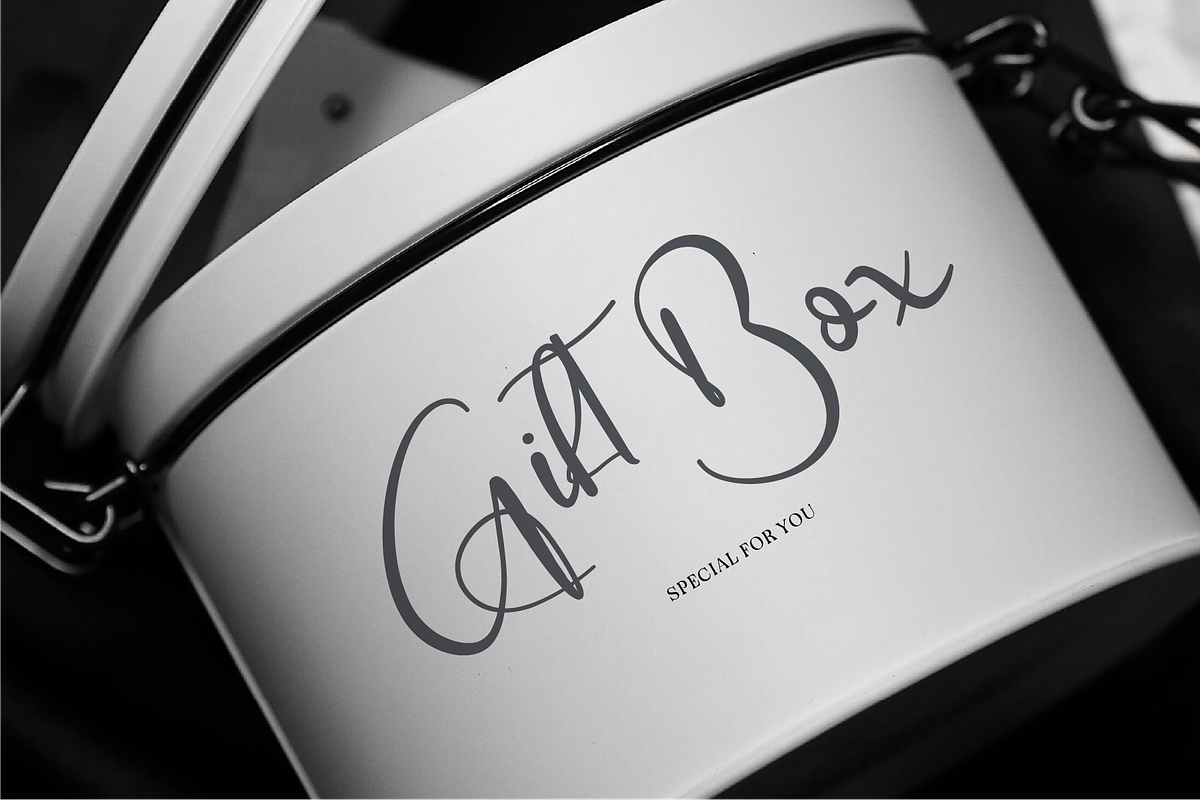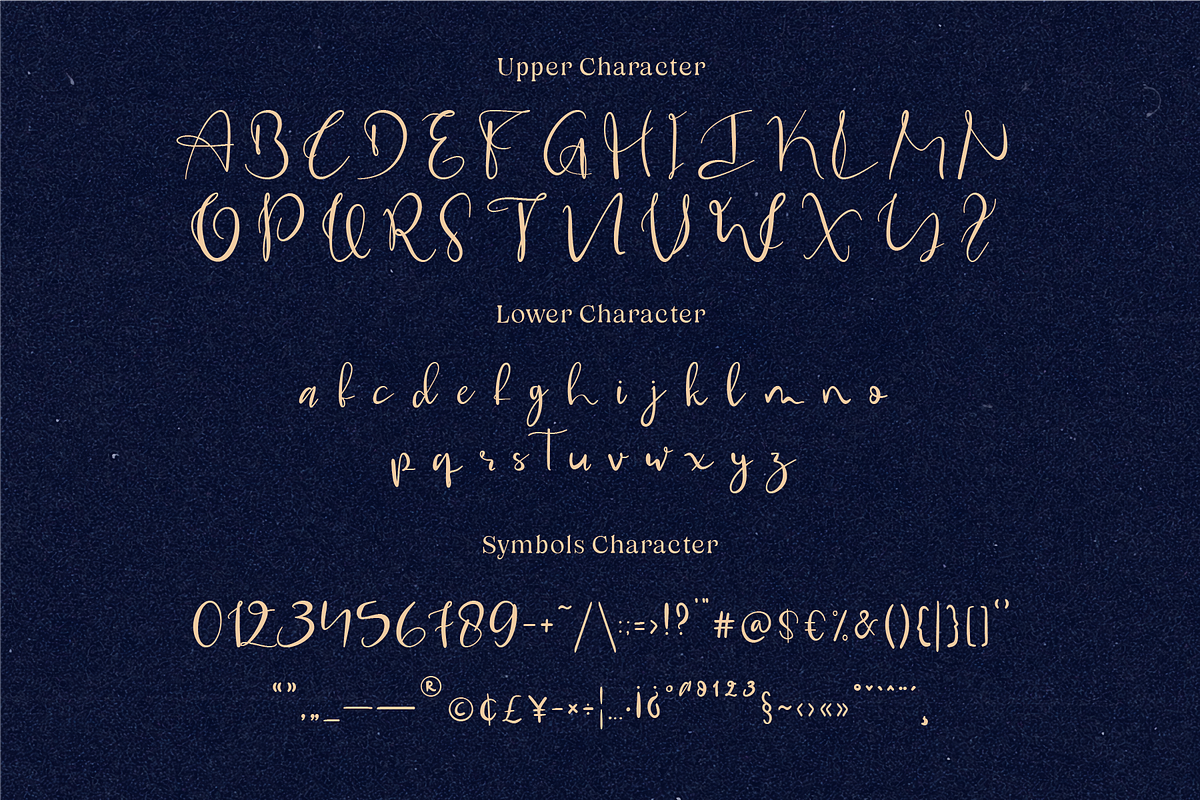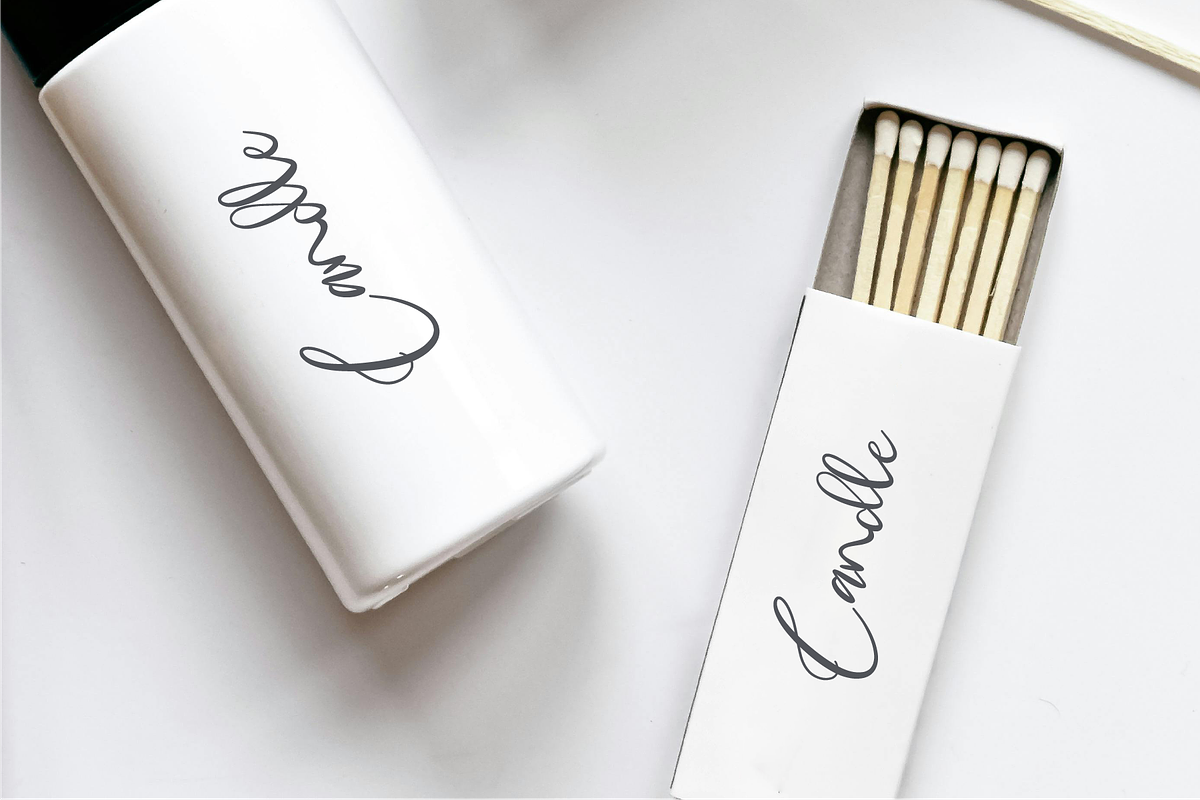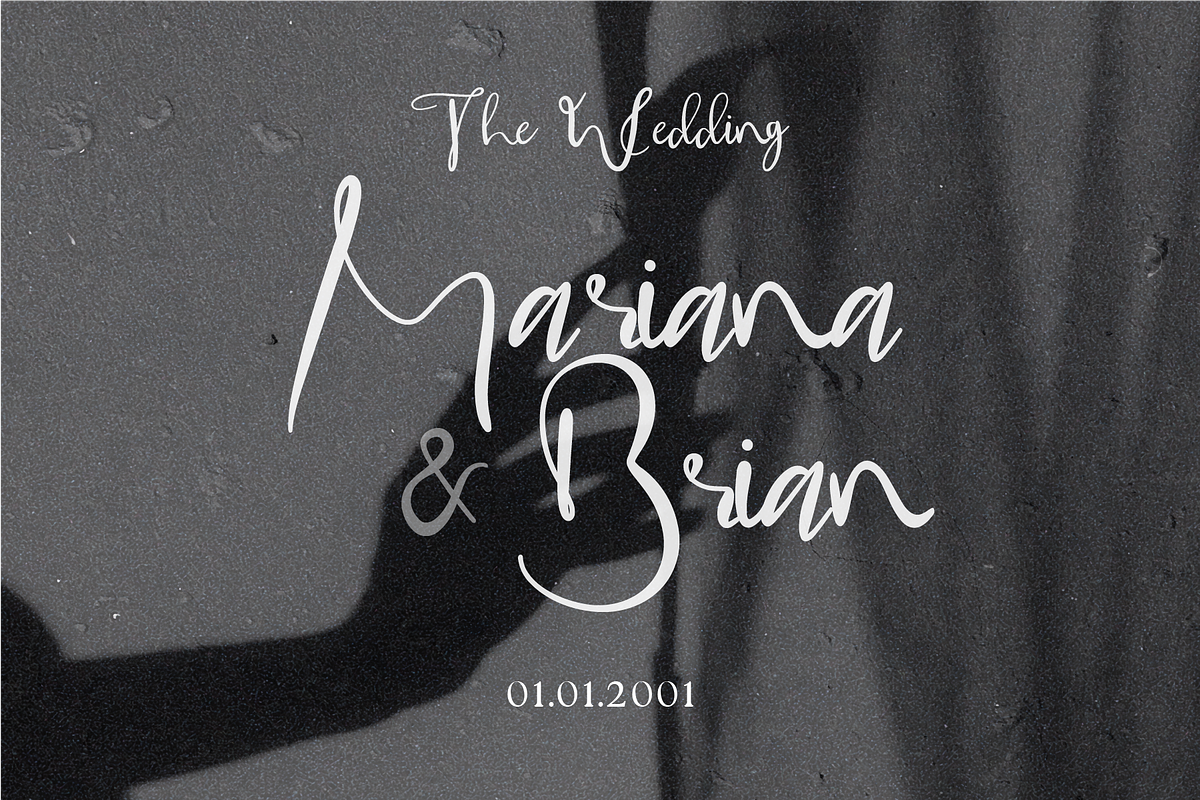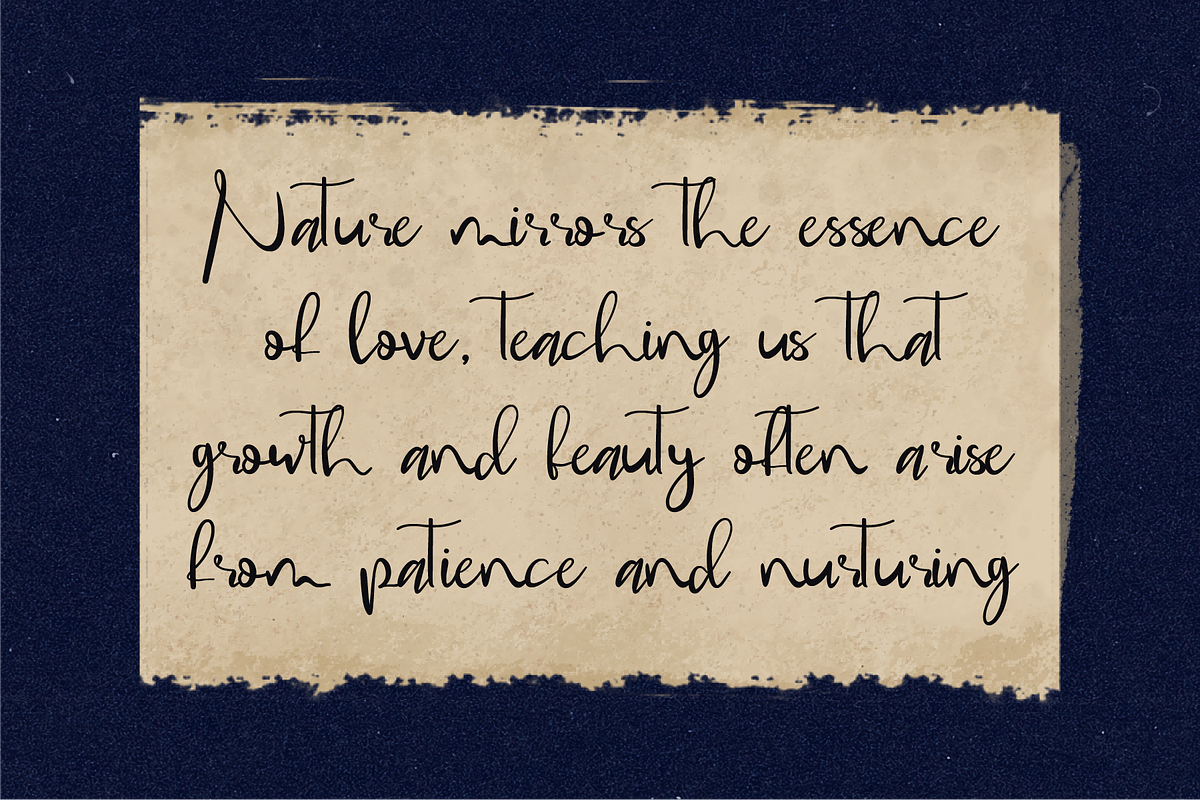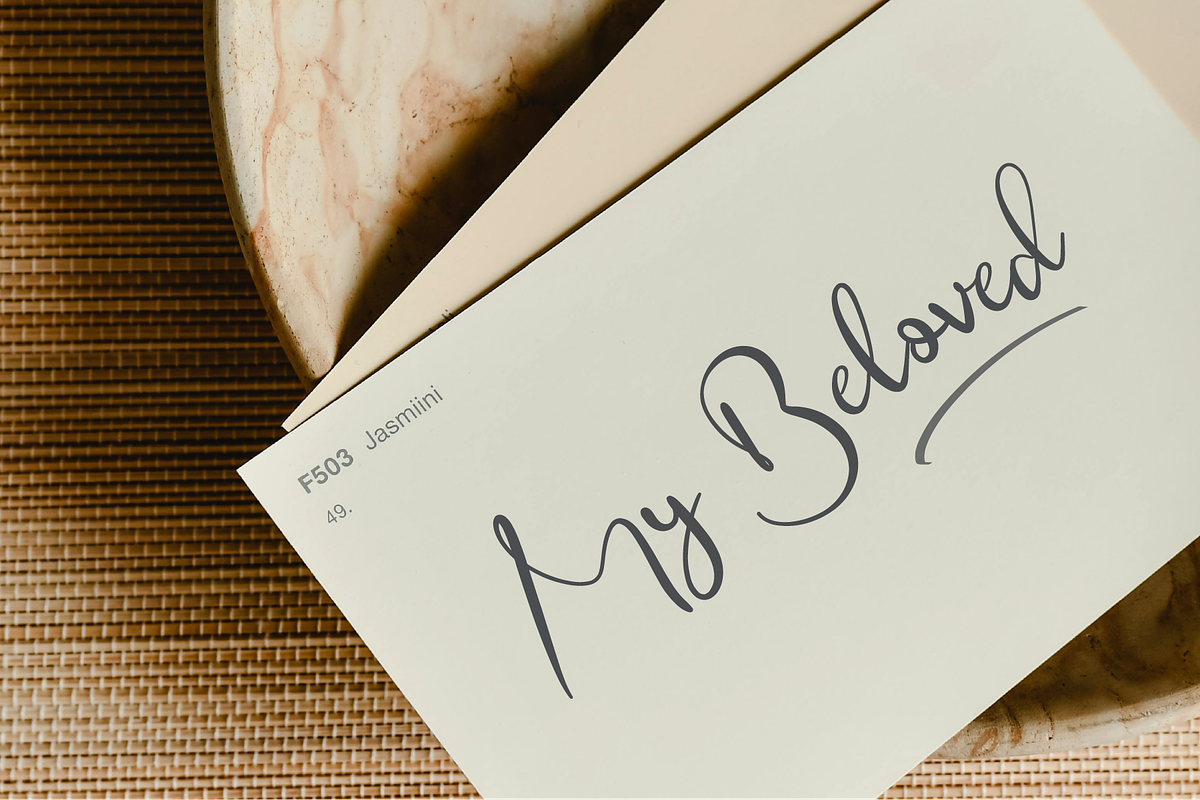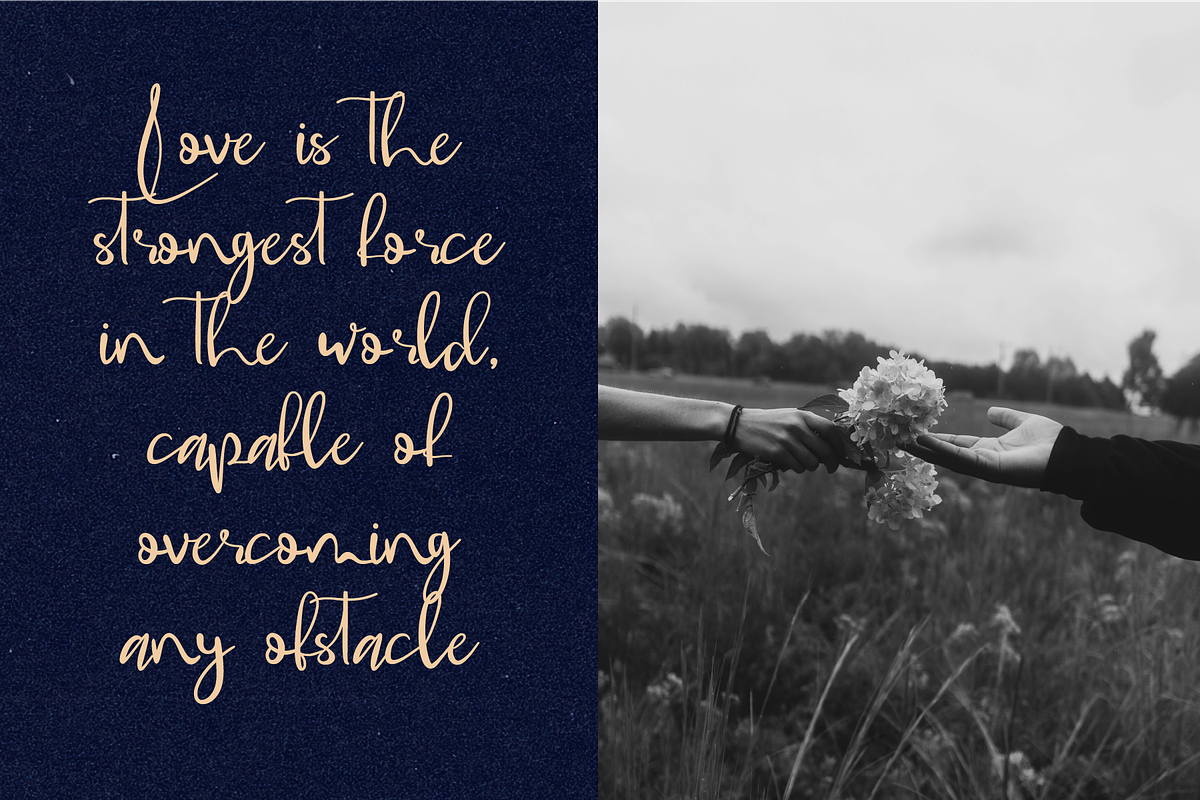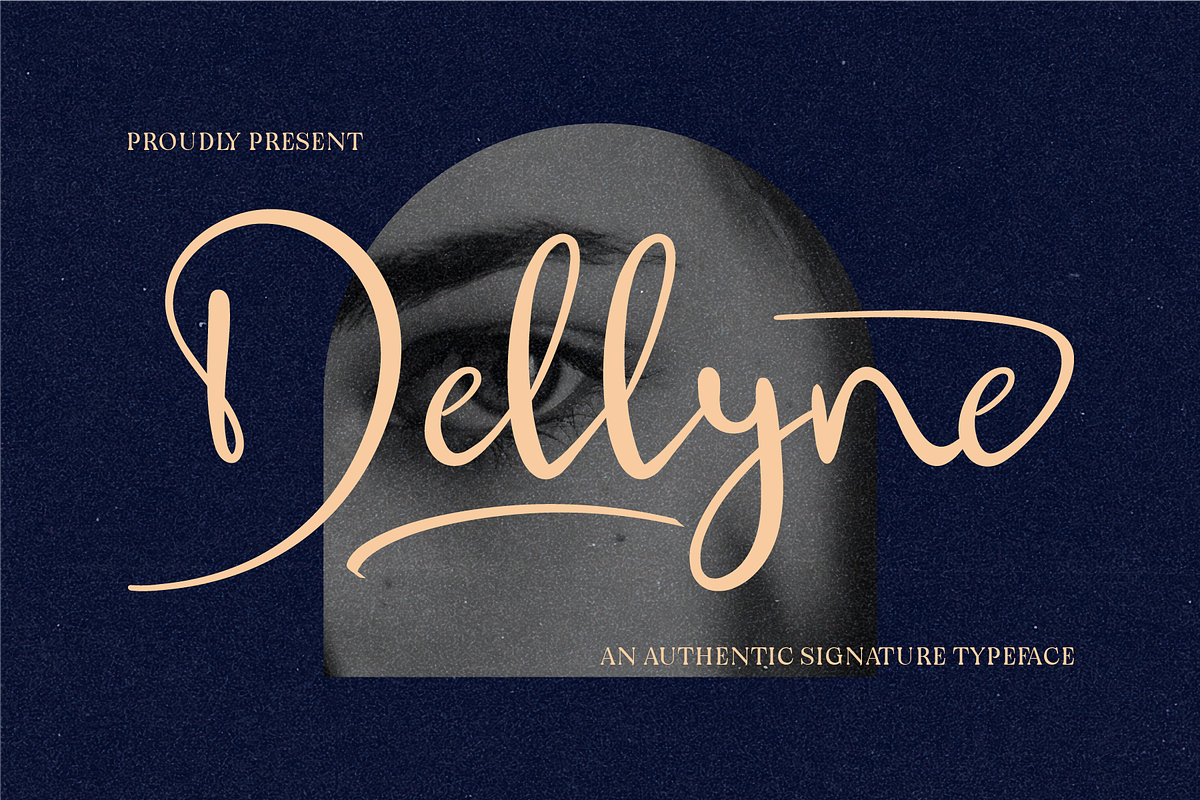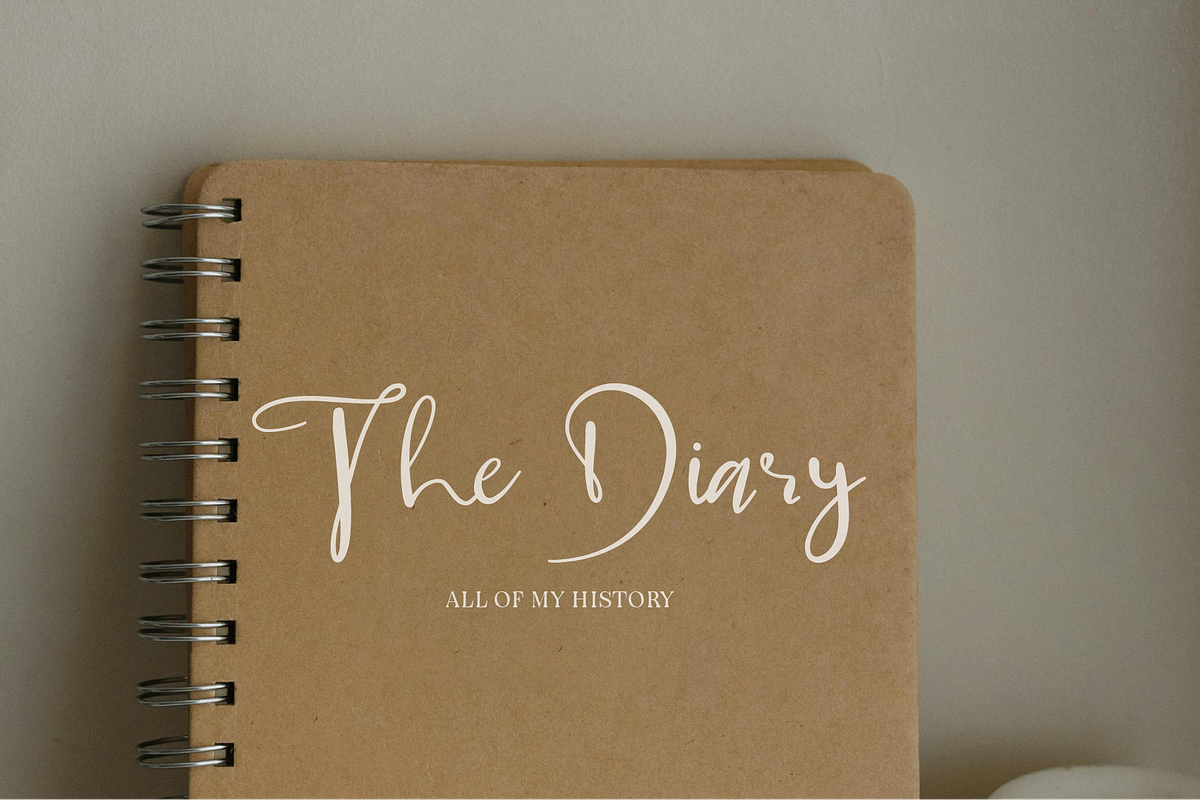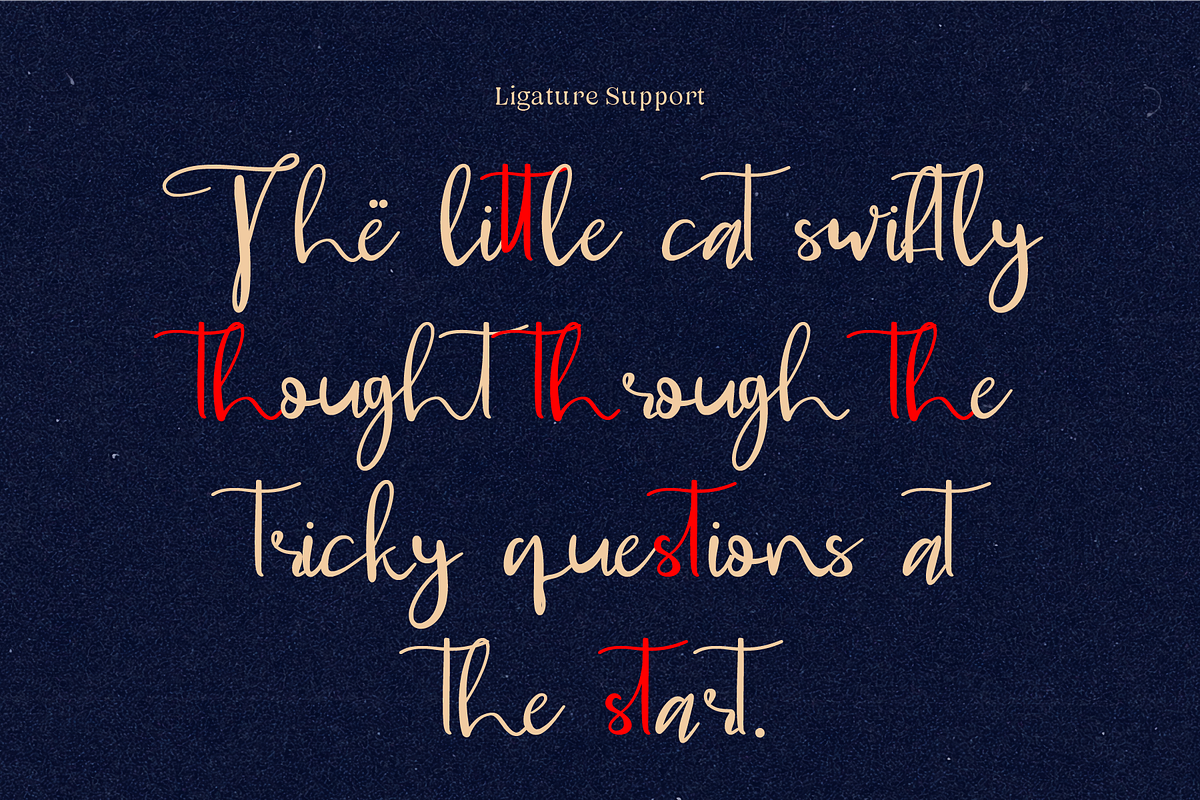
Dellynne - Elegant Signature Handwri
Dellynne is a graceful handwritten font that exudes softness and natural elegance. Its whimsical strokes and playful flow mimic the authenticity of a signature, adding a personal and heartfelt touch to any design. Perfect for branding, invitations, logos, or stationery, Dellynne combines charm and sophistication to create a unique, approachable aesthetic. Its fun yet refined character makes it versatile for both casual and formal projects, embodying the warmth of a personal handwritten note.